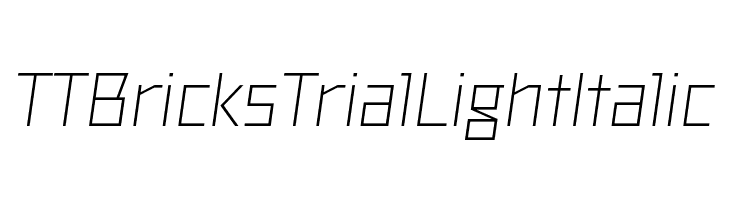
A modern, geometric font with angular design and italic style.
A whimsical, hand-drawn font with elongated, flowing characters.
A bold, wavy font with a playful and distorted style.
A bold, textured, and dynamic font with a brush-like appearance.
An elegant script font with ornate swirls and decorative flourishes.
A bold, italic script font with elegant, flowing letterforms.
A flowing, elegant handwritten script font with a personal touch.
A bold, pixelated font with a retro digital aesthetic.
A bold, cursive font with smooth, flowing lines and a dynamic style.
A playful, handwritten font with tall, narrow, and slightly irregular strokes.